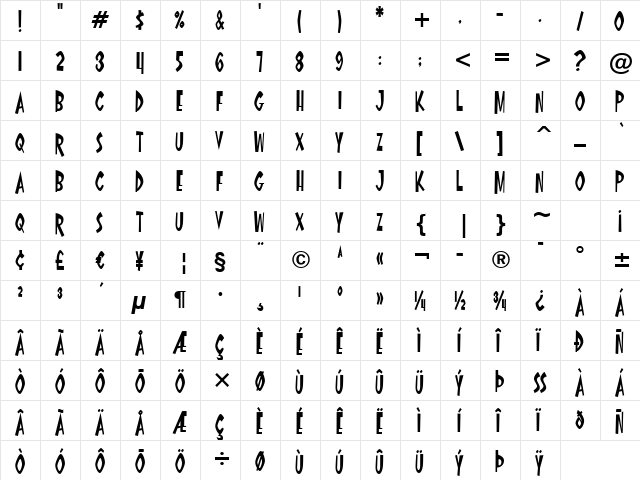
Oyster Bar BTN Cond Regular
Oyster Bar BTN Cond is a composed and adaptable typeface that performs quietly and consistently across a wide range of design contexts. Its narrow stance lets it pack a punch even in space-constrained designs.